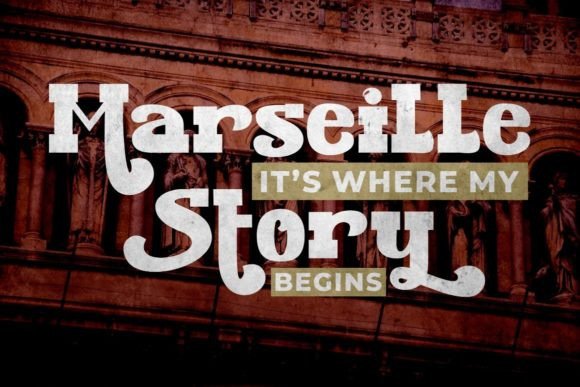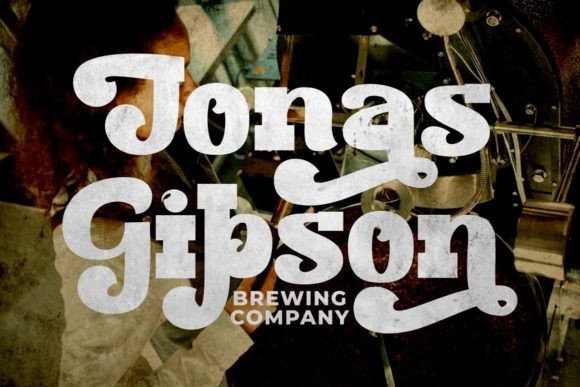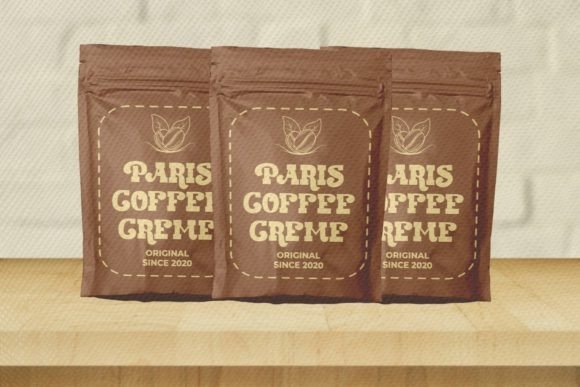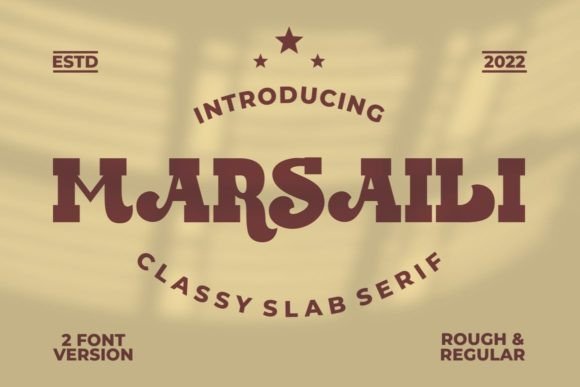
Introduction to Marsaili Font
MARSAILI – CLASSY BOLD SERIF Marsaili is a very versatile font that works great in bold serif.
Helps to create layout design in the 60s or 70s design projects Marsaili is a classy vintage serif font with beautiful ligatures, tons of alternative glyphs, and multilingual support.